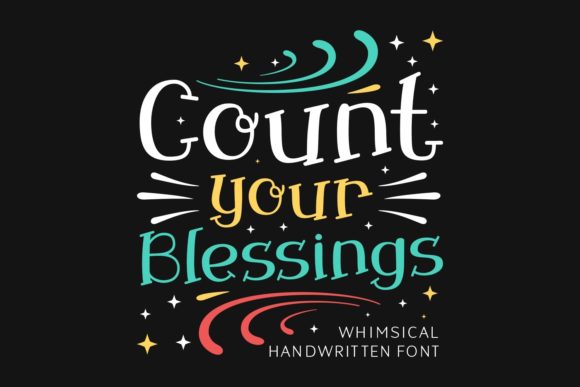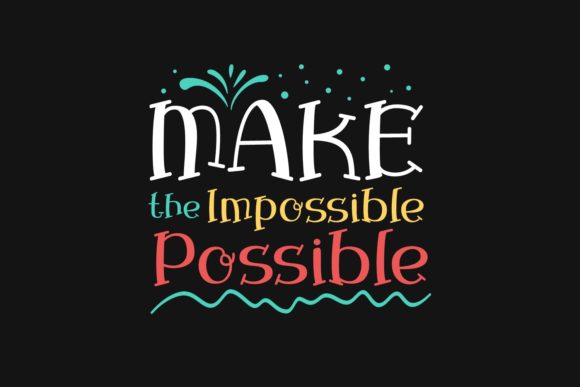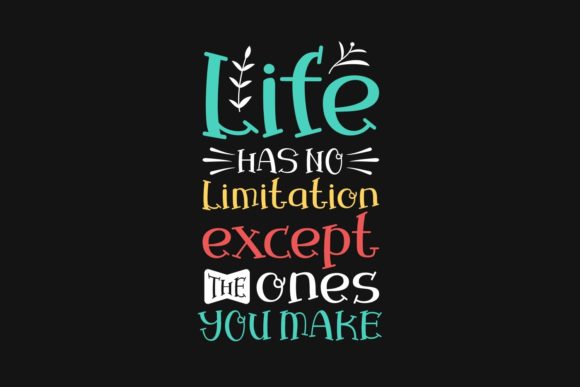
Count Your Blessings Font
About Count Your Blessings Font
Count Your Blessings is a beautiful and playful handwritten font. You will be counting your blessings when you have this font in your library to bring your craft and design projects to the next level! It is compatible with cutting machines such as Cricut and Silhouette.